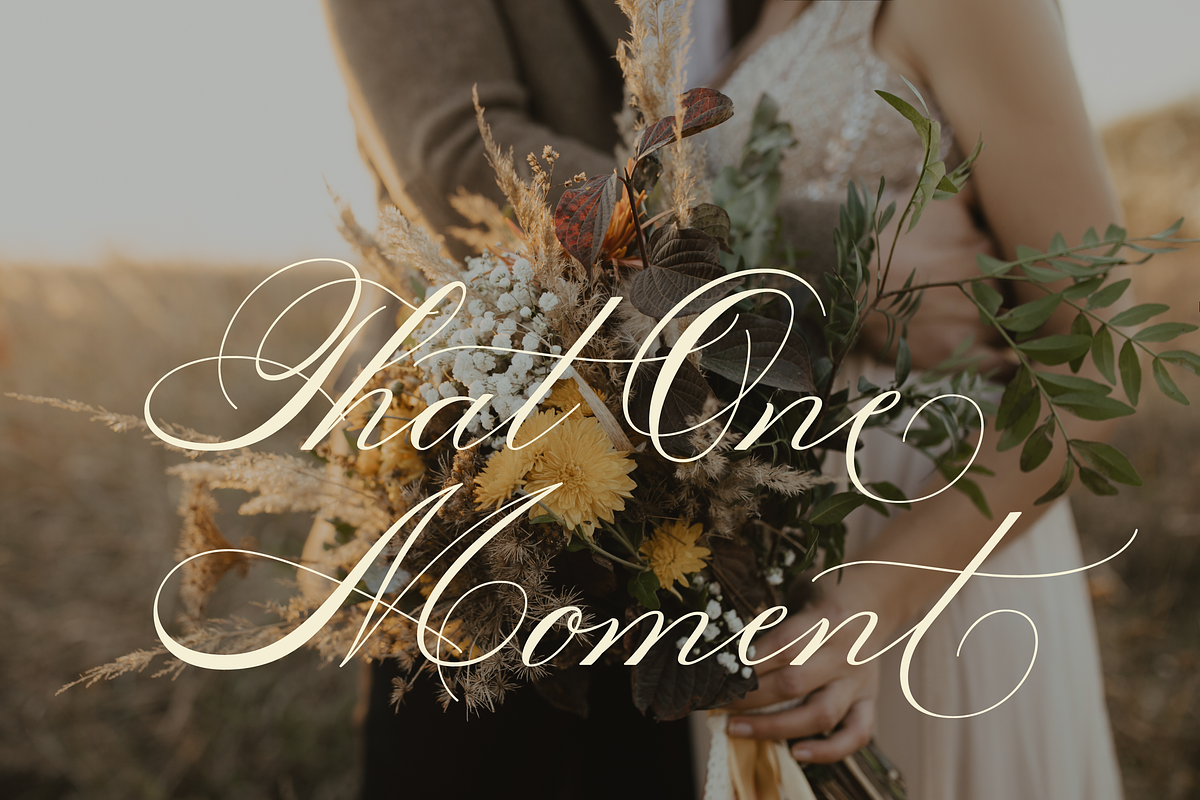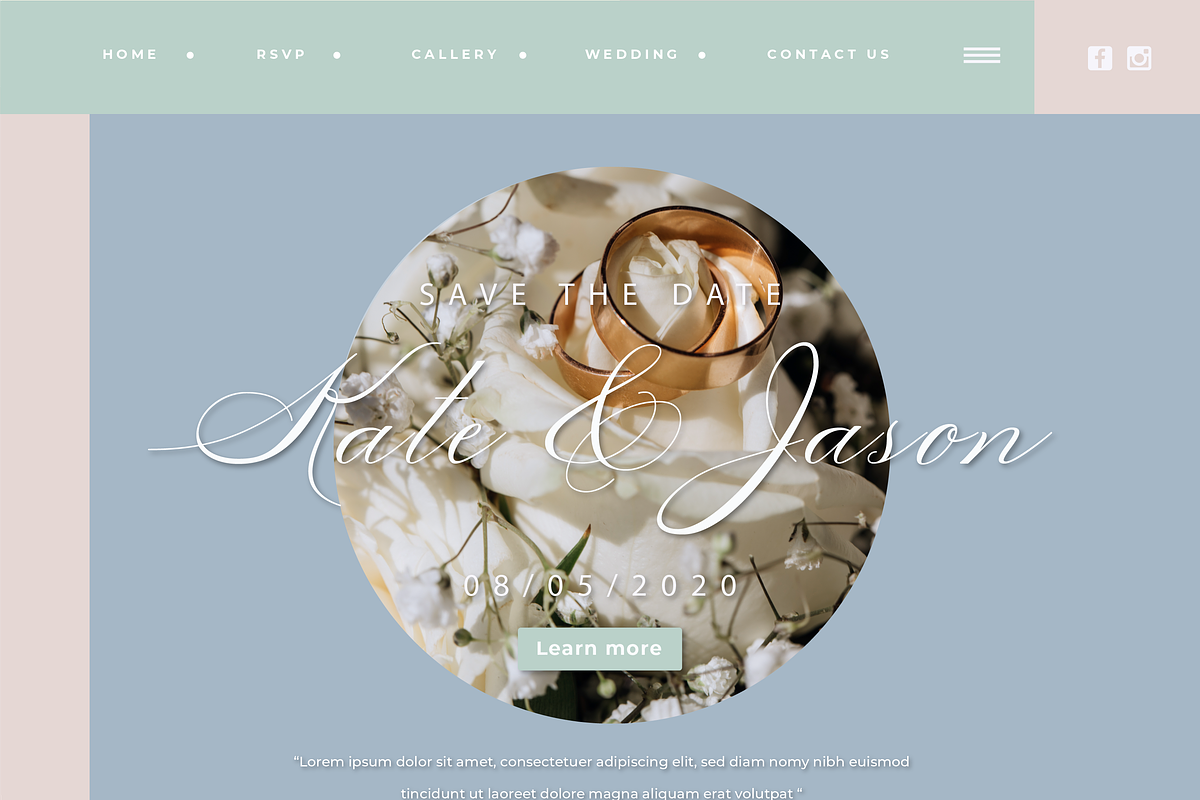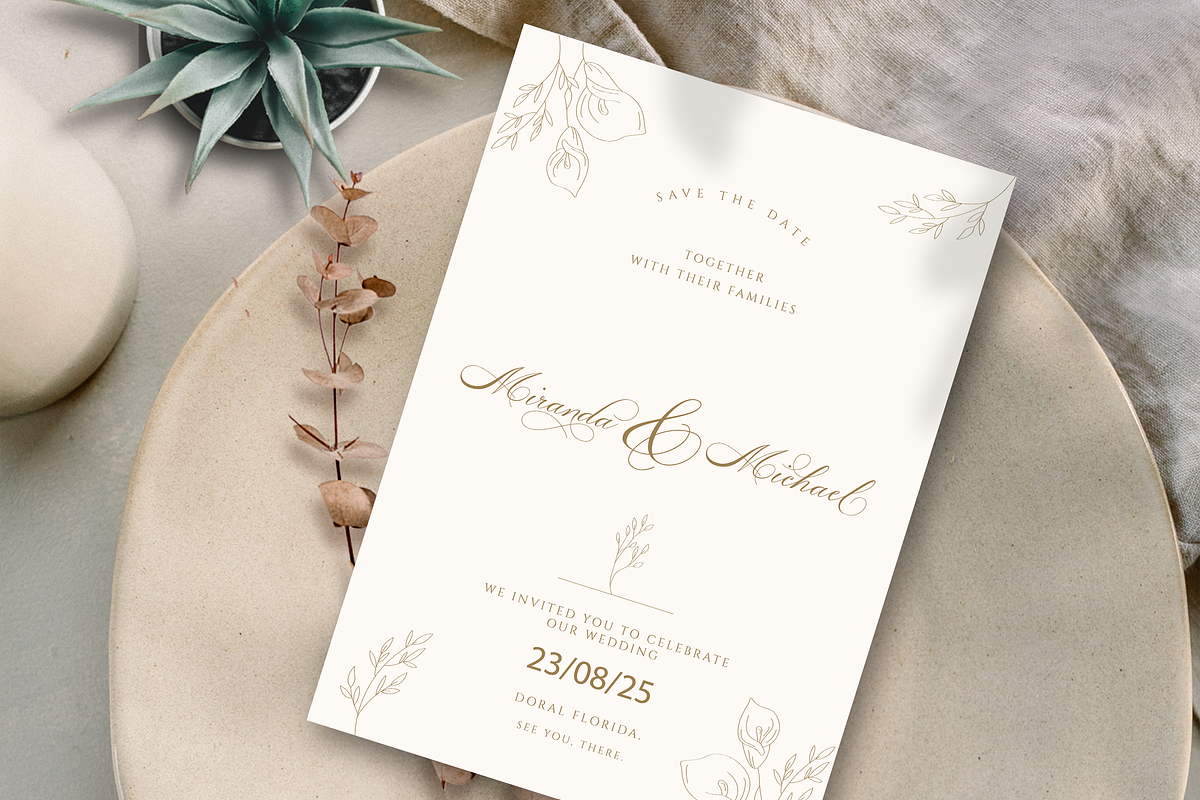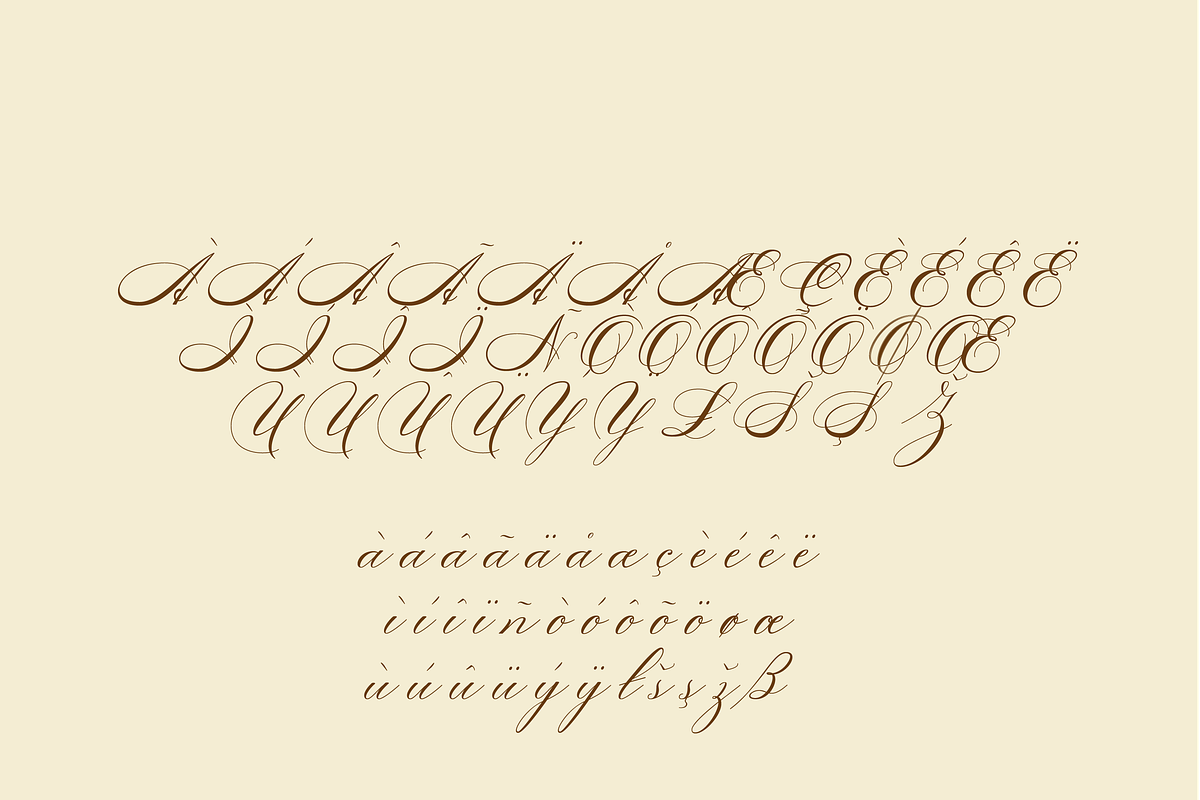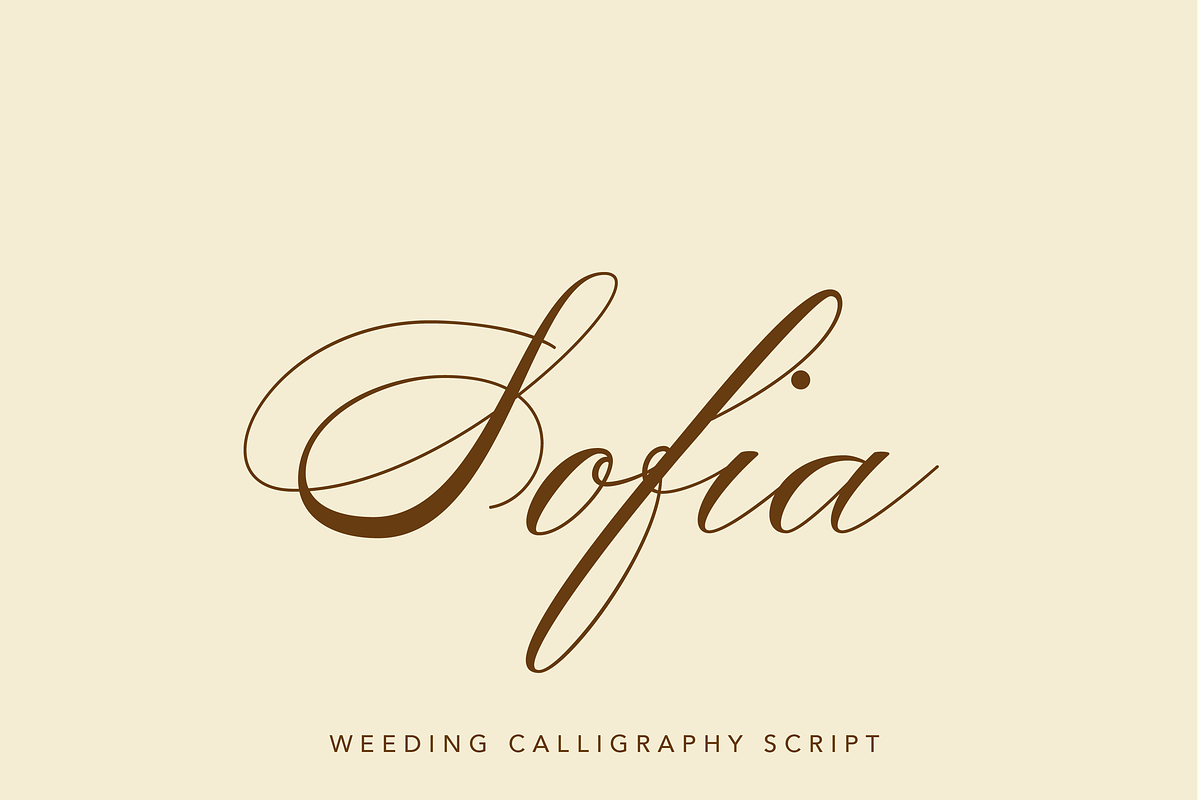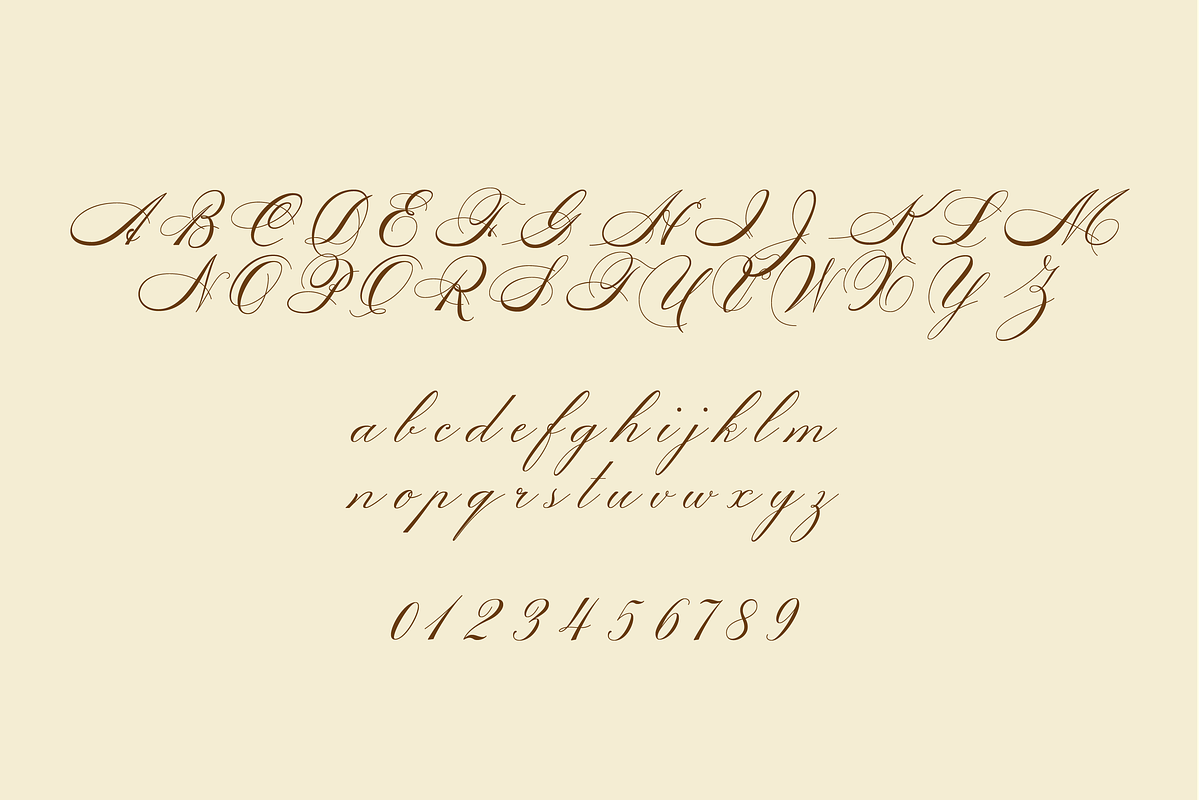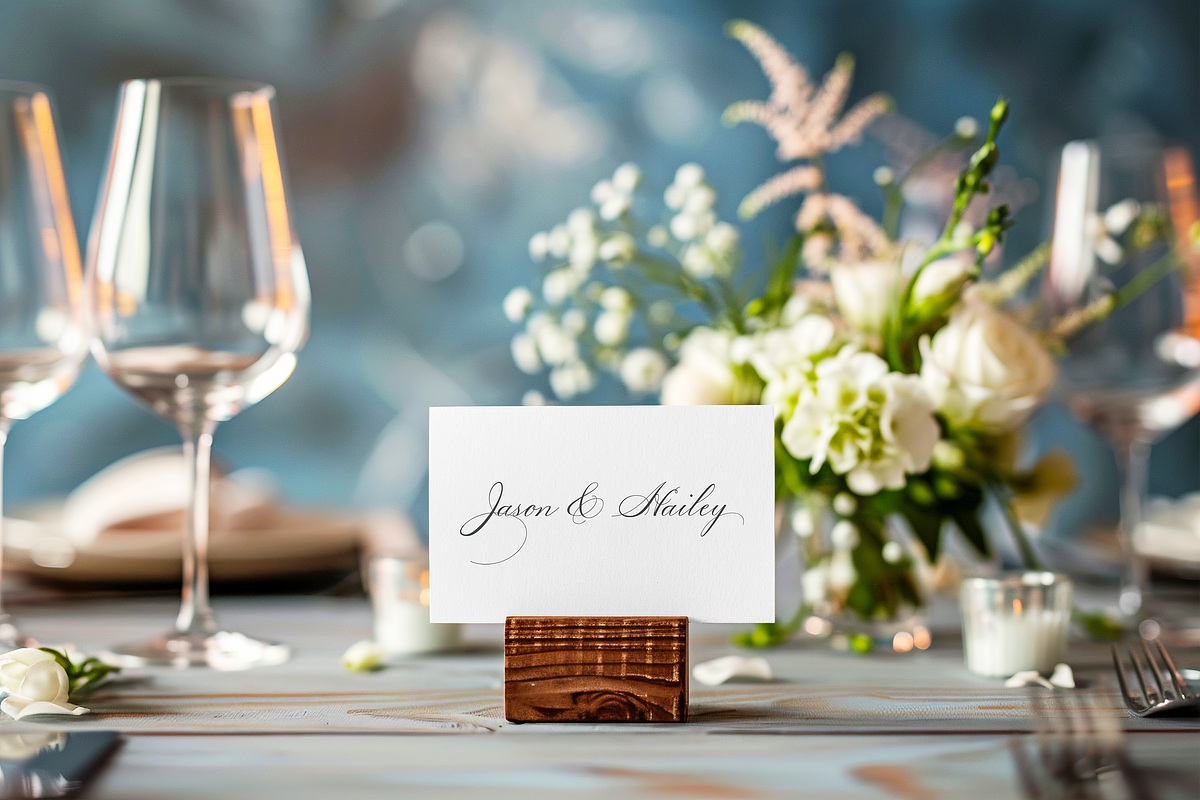
Sofia Script
Sofia Script – Elegant Wedding Calligraphy Font
Sofia Script is a handcrafted calligraphy typeface specifically designed for wedding invitations and elegant designs. It comes with an extensive set of alternate letterforms, allowing you to create truly unique and customized layouts. The font includes both OTF and TTF formats, ensuring compatibility with software like Photoshop, Illustrator, and Canva.
Highlights: • Elegant, Romantic Calligraphy – Perfectly suited for weddings, announcements, and high-end stationery. • Rich Alternate Variants – Accessible through OpenType features for unique stylistic flourishes. • Easy to Use – Works seamlessly in popular design applications and character map tools.
If you're looking for a script font that adds sophistication and personalized flair to your wedding or special-event designs, Sofia Script is a beautiful and versatile choice.